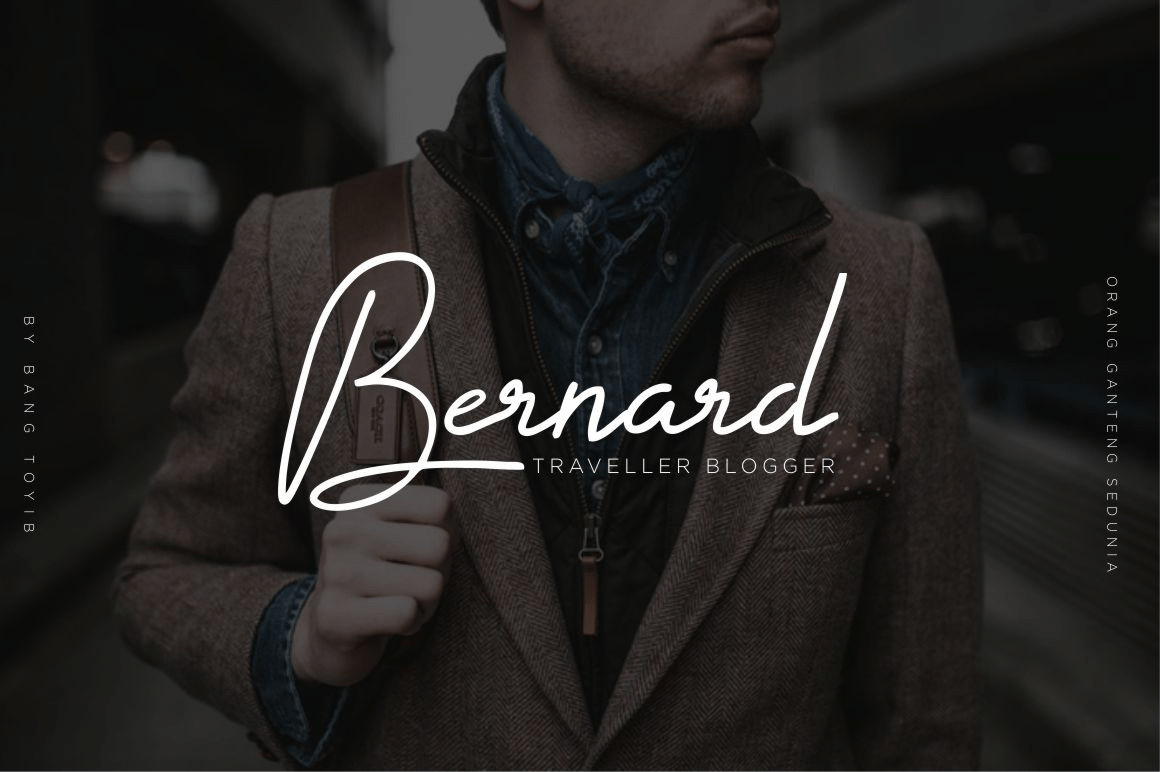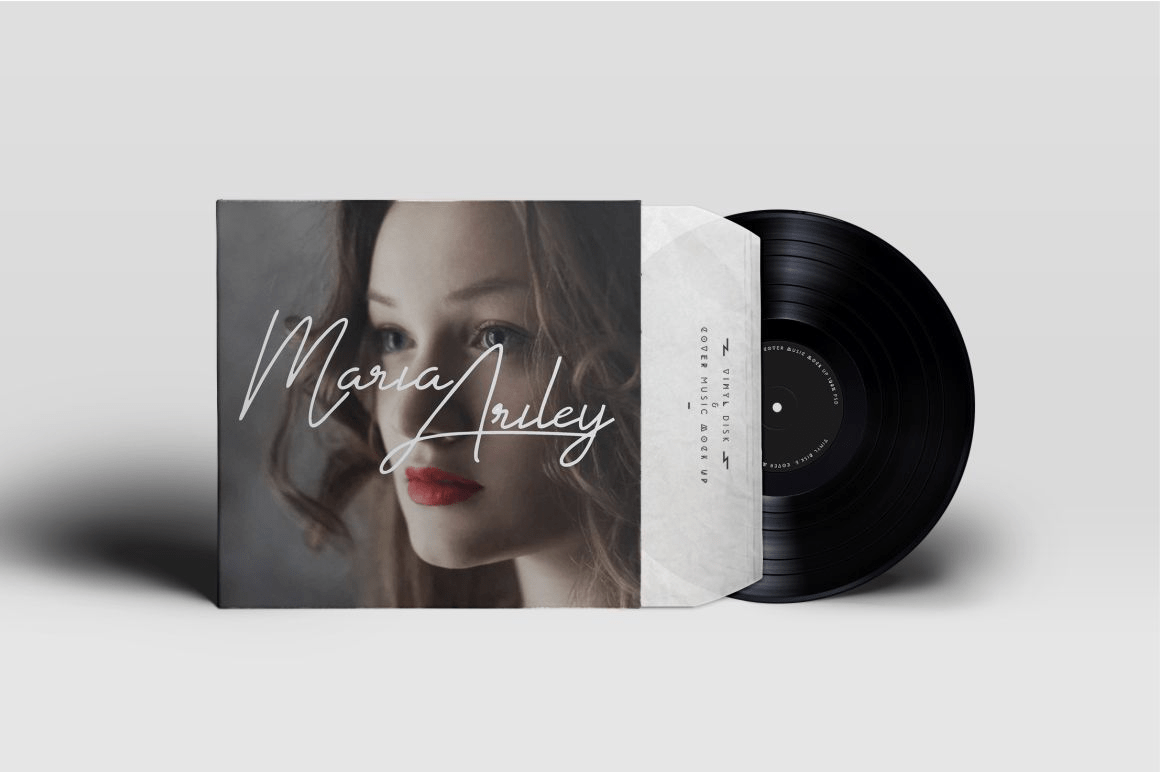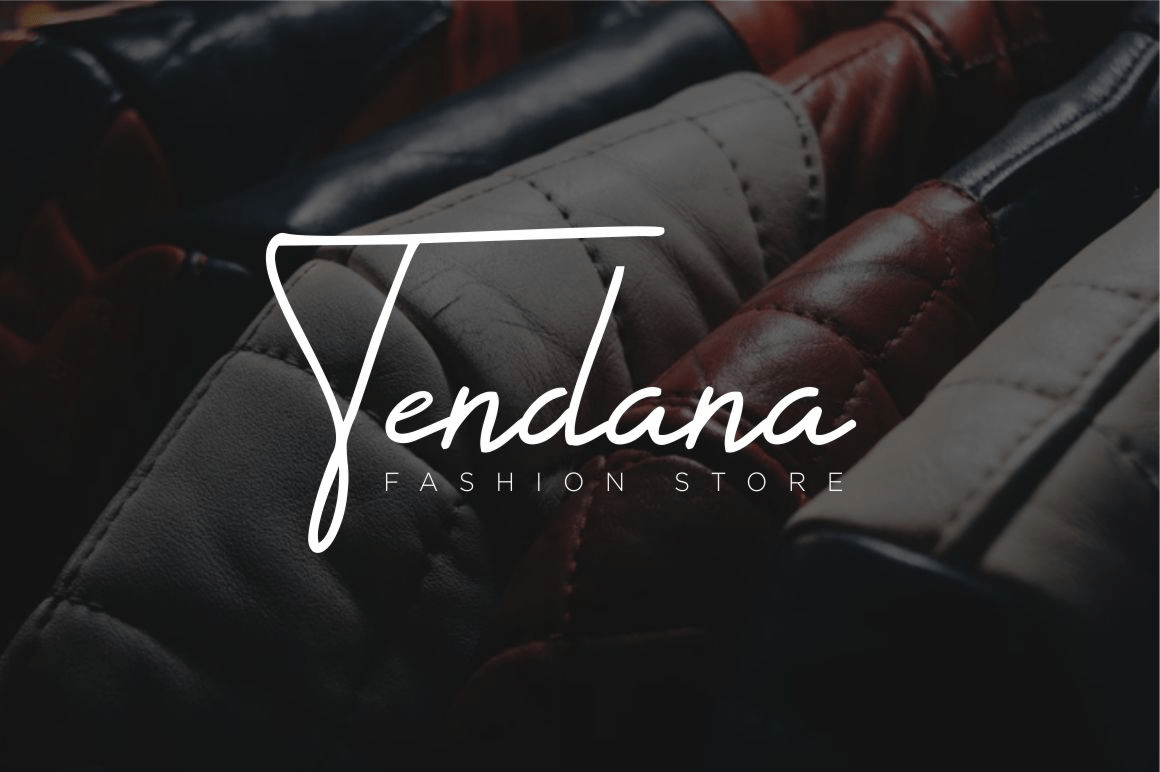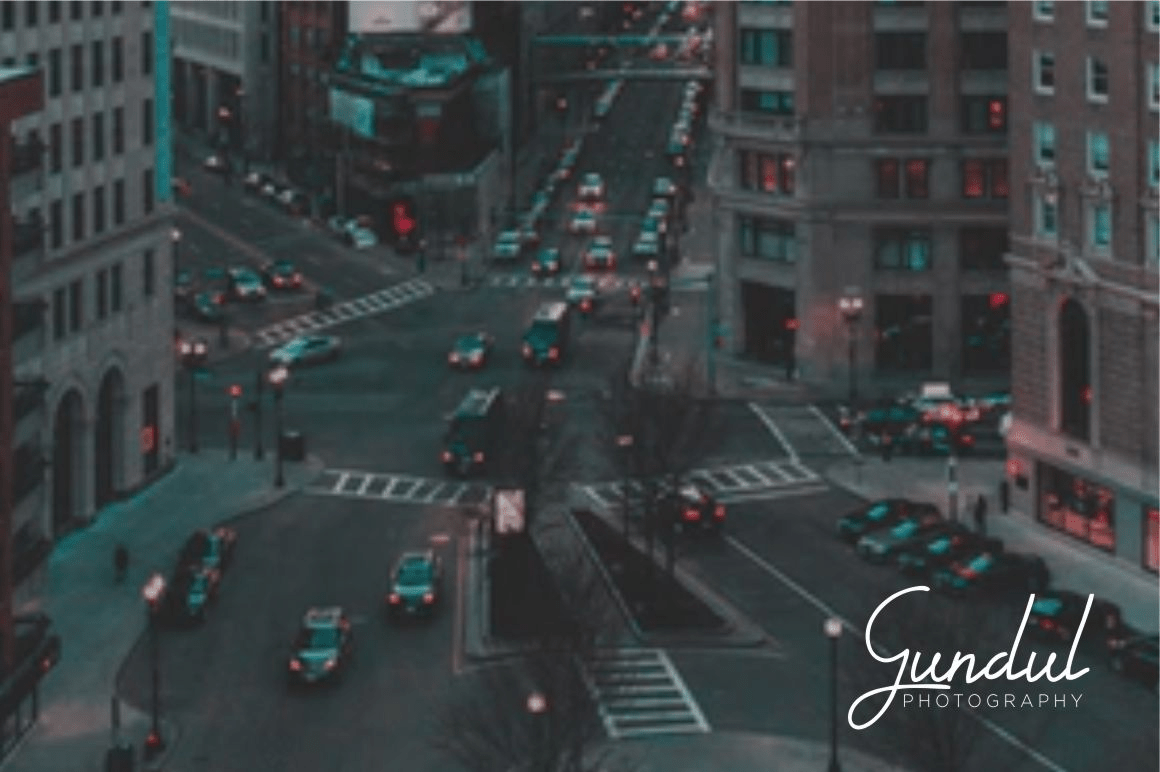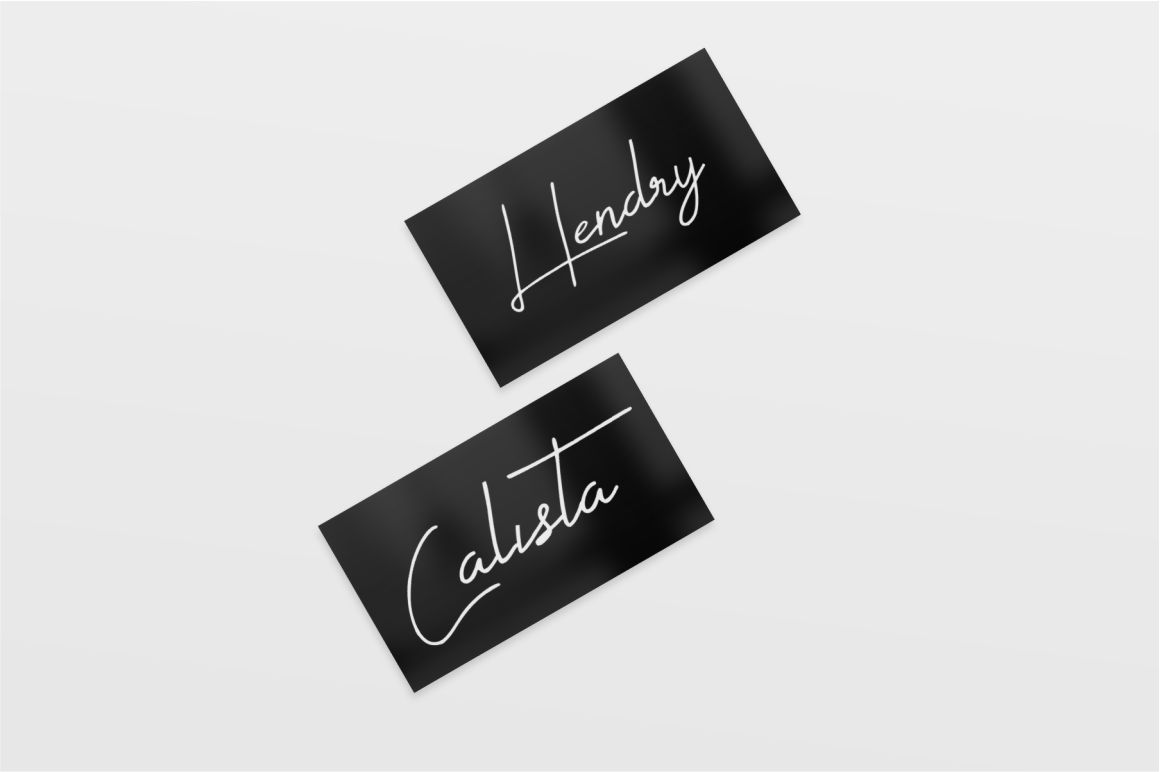
Alabama Signature
Font Family by Eldertype Studio
This font perfect for adding some romance and charm to your designs. This script functions most strongly as a display or headline font. suitable for logo, logotype, branding, fashion, label, book cover, t-shirt, instagram post, and other